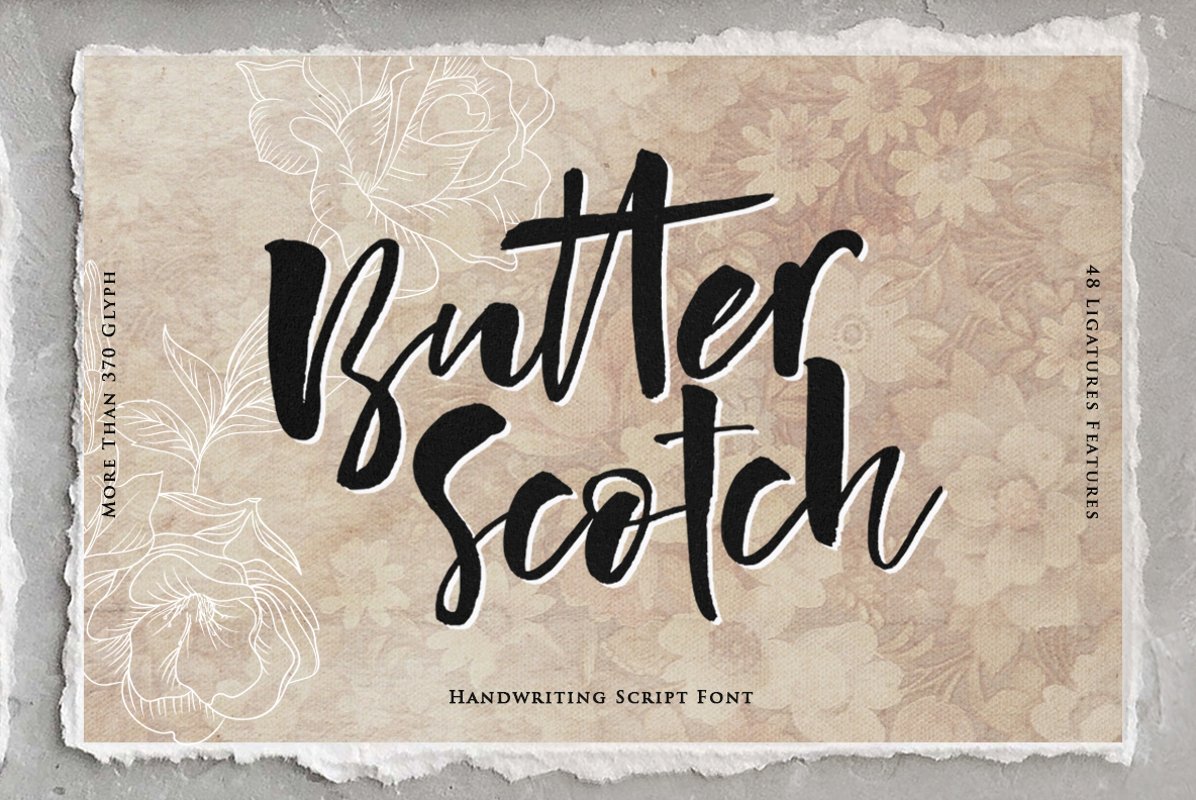
Butter Scotch Script Font
Butter Scotch
Butter Scotch Italic
Allow me to introduce Butter Scotch! ♥ A collection of handmade fonts designed to perfectly combine informal, presumptuous, romantic texts, cute bouncy scripts, natural brush fonts, and hand-drawn design elements.
This impromptu script flows naturally with automatic standards and discretionary ligature. You can create designs and letter phrases with a whole set of unique letters! Your design will look completely hand-lettered.
has more than 370 glyphs, 48 ligatures with regular and italic versions with OTF and TTF formats to spoil each of your projects